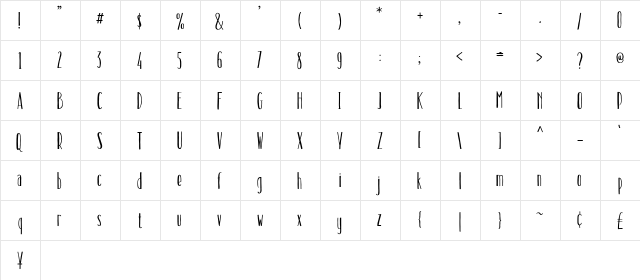
Hinterland Regular
Design Context for Hinterland Typeface
Hinterland is a composed and adaptable typeface that performs quietly and consistently across a wide range of design contexts.